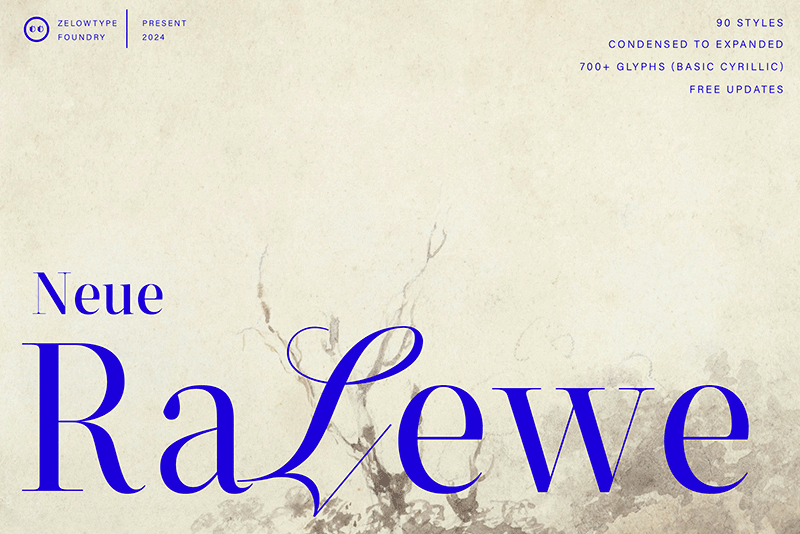
Step into the realm of design opulence with ZT Neue Ralewe � a serif font that doesn't just grace your creations; it transforms them into masterpieces. This font is more than a collection of characters; it's an embodiment of: - 90 Styles: From the delicate dance of Thin to the commanding presence of Black. - 26 Unique Characters, each whispering tales of individuality. - 700+ Glyphs, a kaleidoscope of expressive possibilities. - Condensed to Expanded Variations, offering a canvas for dynamic design poetry. - Timeless Elegance that transcends trends, crafting a legacy of sophistication. - Global Language Support, a harmonious embrace, inclusive of Basic Cyrillic. - Versatility for both Headlines and Body Text, where every word becomes a stanza. Note of the author To download the full font family please visit our website: https://www.behance.net/gallery/188839695/ZT-NEUE-RALEWE-Free-Font-90-Styles-Cyrillic Donation are very appreciated. Paypal account for donation : https://paypal.me/khaiuns CONTACT US: have a question?: selowtype@gmail.com |